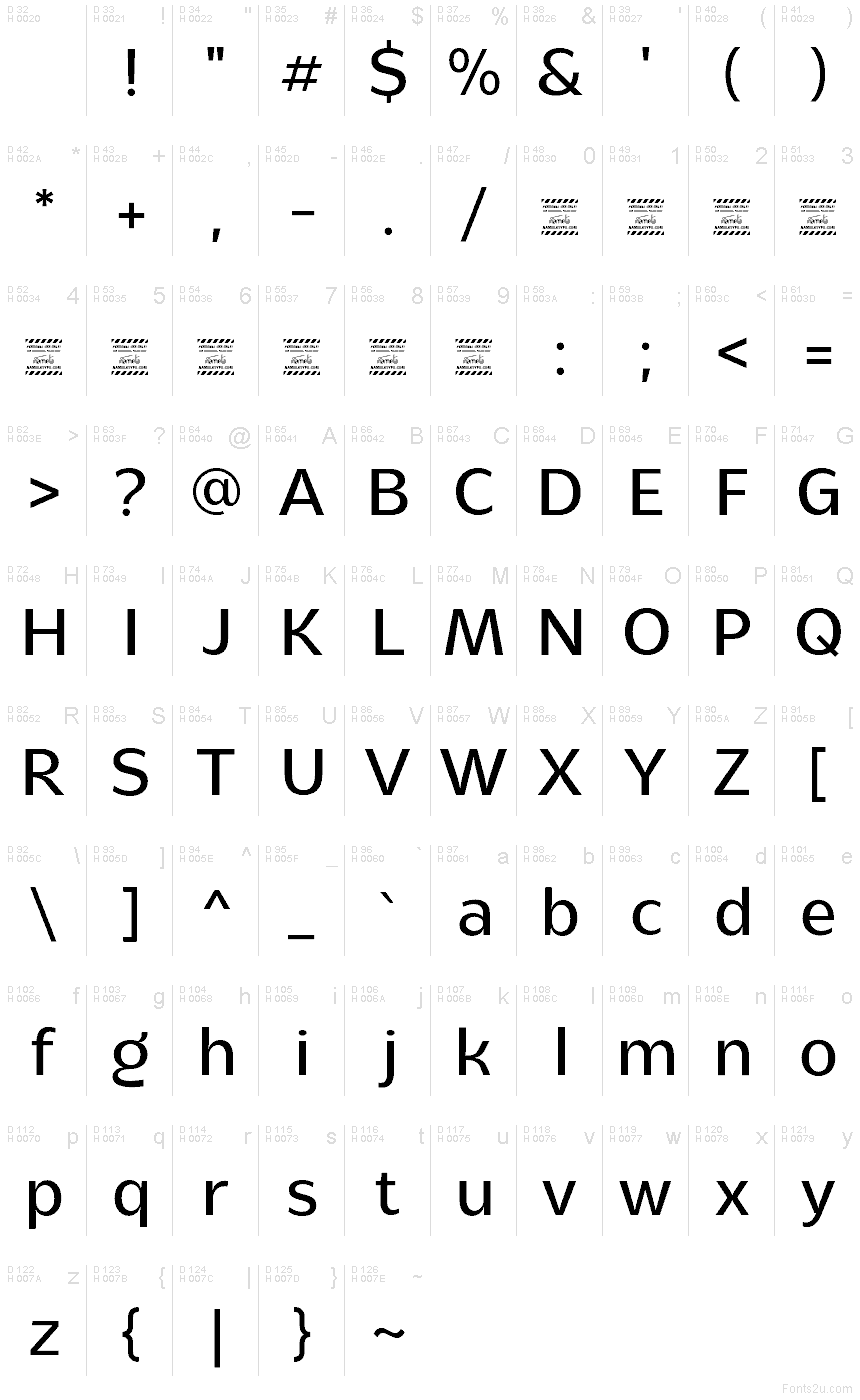
Gosent DEMO Regular
Gosent font by Namela Type is a sans serif font that uses several edits and combinations for a clean appearance and formal aesthetic. Each character was developed to present a clear modern design so that all readers get the best reading experience with it. And since perfection comes with perseverance, certain tasks require such efforts.